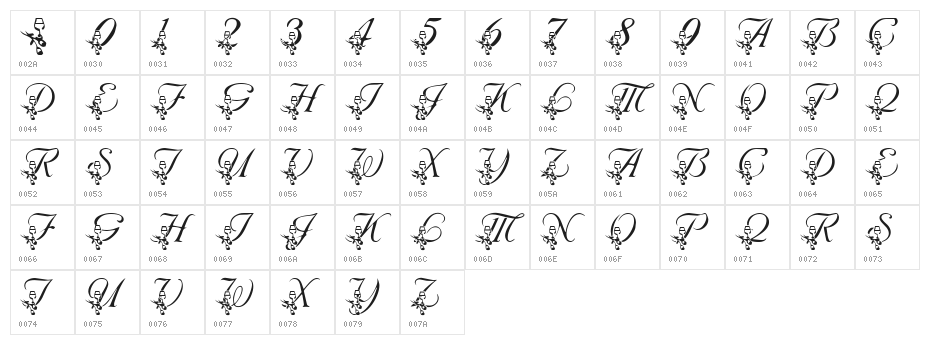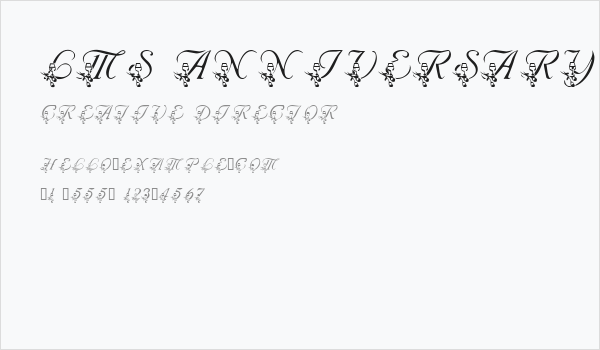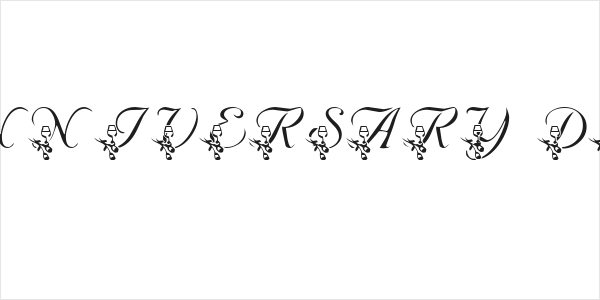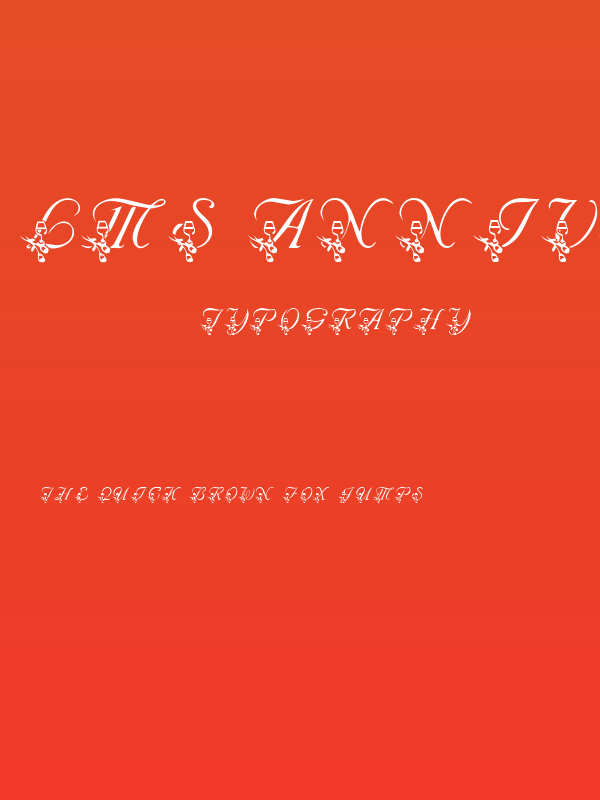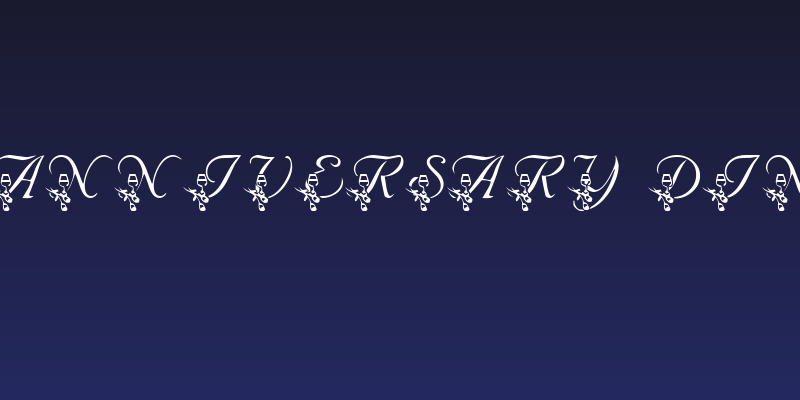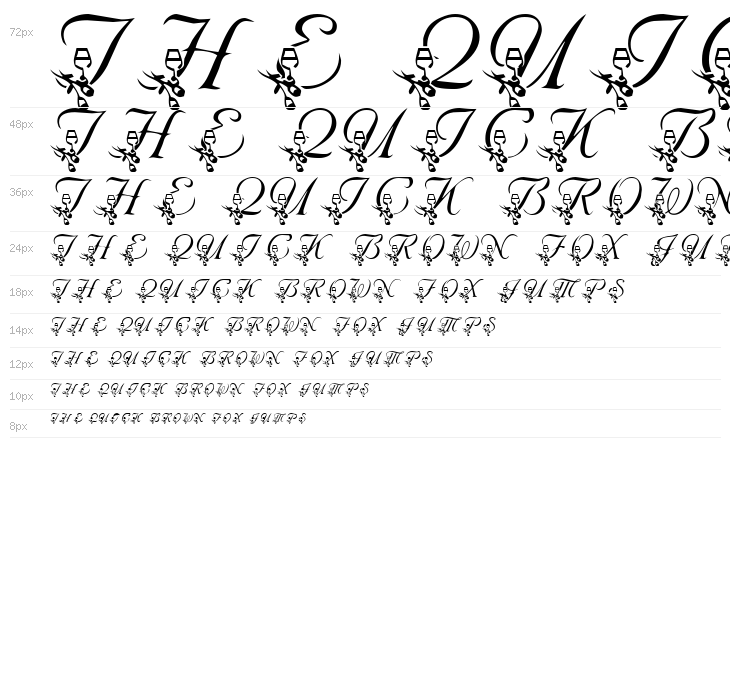
LMS Anniversary Dinner Font
This font features an elegant and decorative style, incorporating playful elements with each character. The letters are adorned with a small figure holding a wine glass, adding a whimsical touch to the overall design. The characters are script-like with flowing lines and curves, creating a sophisticated yet fun appearance. The numbers and special characters maintain this theme, ensuring consistency across all glyphs. This font is ideal for celebratory or festive occasions, where a touch of elegance and humor is desired.
| Use Case | Headlines, Invitations, Event Branding |
| Proposed Projects | Ideal for invitations, event posters, or branding for celebratory events such as weddings, anniversaries, or parties. |